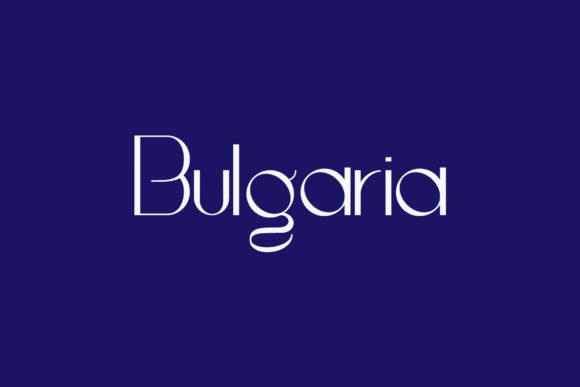
The Bulgaria Font: A Minimal and Neat Sans Serif for Your Creative Projects
This minimal and neat sans serif font has become a staple in my design toolkit, and I’m excited to share it with you. In this article, we’ll dive into the world of Bulgaria font, exploring its features, how to use it, and what makes it so special.
An Honest Review of Bulgaria Font
- ✅ Clean and minimal design: Bulgaria font is perfect for projects that require a simple, yet elegant look.
- ✅ Highly versatile: This font can be used for a wide range of projects, from branding and logos to headings and body text.
- ✅ Easy to read: The font’s clear and concise design makes it easy to read, even at small sizes.
- ✨ Unique character: Bulgaria font has a distinct personality that sets it apart from other sans serif fonts.
While Bulgaria font is an excellent choice for many projects, it’s not perfect. Here are a few things to keep in mind:
- ⚠️ Limited styling options: Bulgaria font is a relatively simple font, which means it doesn’t have a lot of built-in styling options.
- 🤔 May not work well with complex layouts: While the font is easy to read, it may not be the best choice for complex layouts or designs with a lot of visual noise.
The Backstory of Bulgaria Font
Bulgaria font was designed with the goal of creating a clean and minimal sans serif font that’s perfect for a wide range of projects. The font’s creator was inspired by the beauty of simplicity and the importance of legibility. 💡
| Author | Design Stag |
Q: What is the Bulgaria font?
A: Bulgaria font is a minimal and neat sans serif font that’s perfect for a wide range of creative projects.